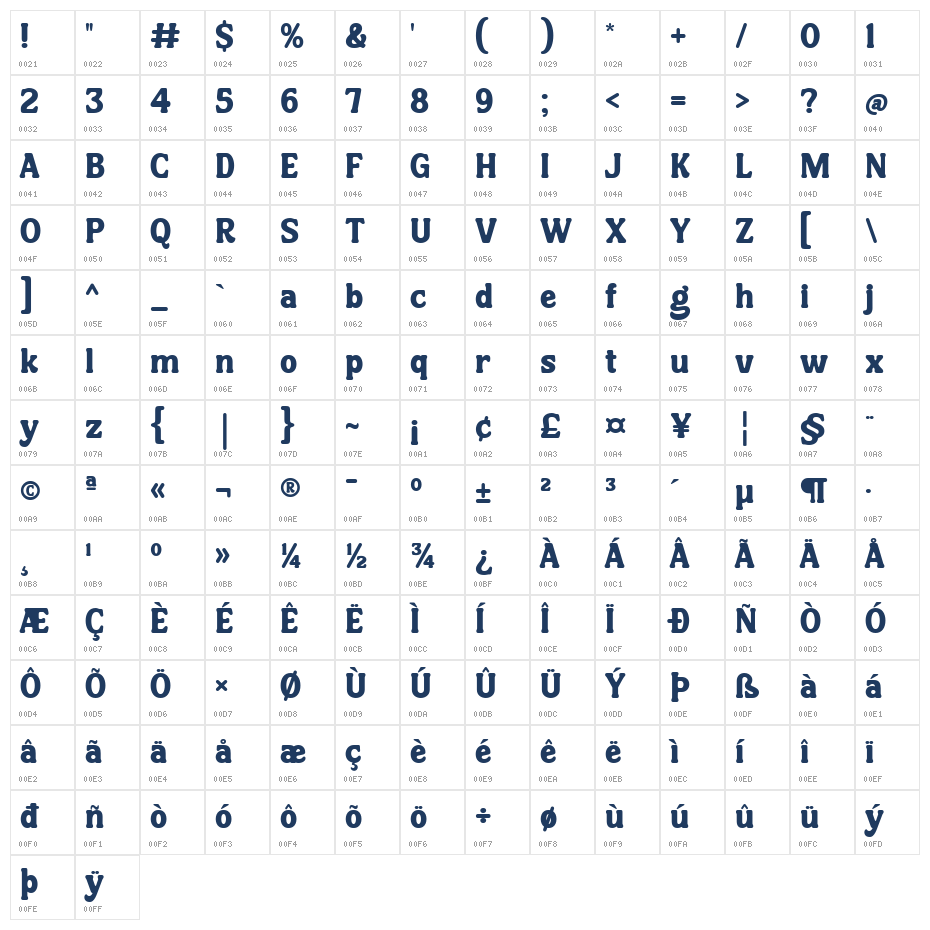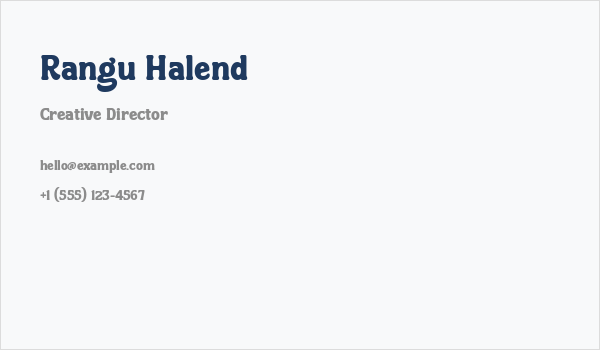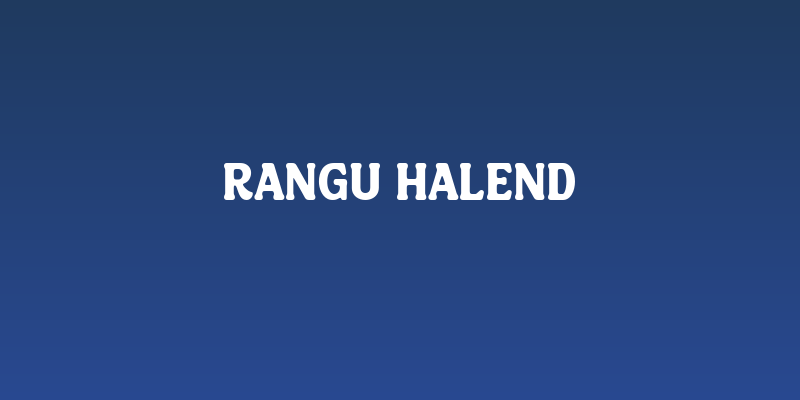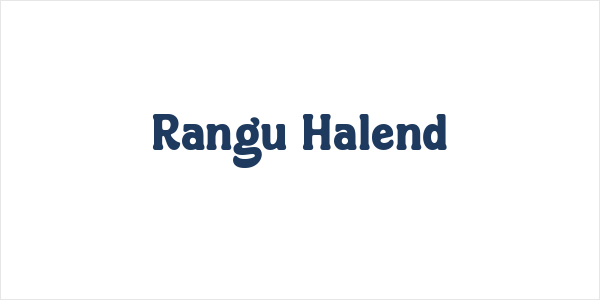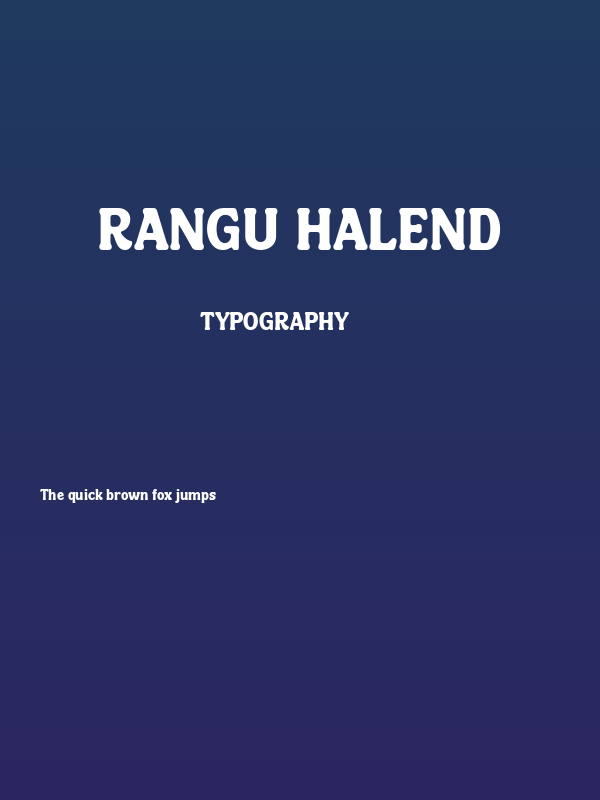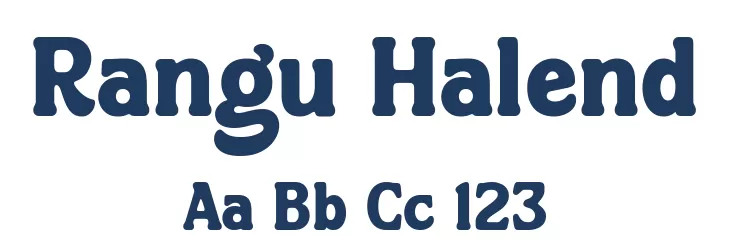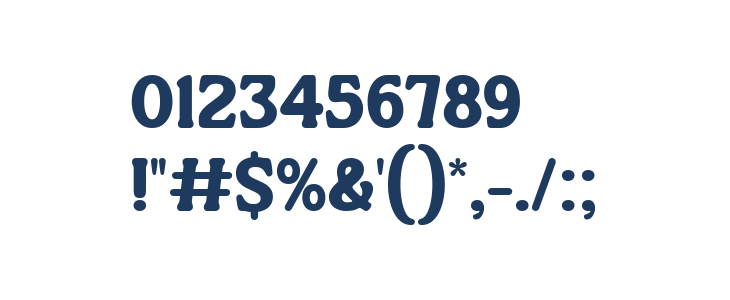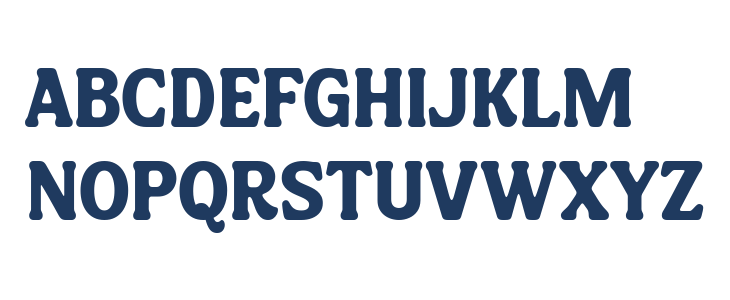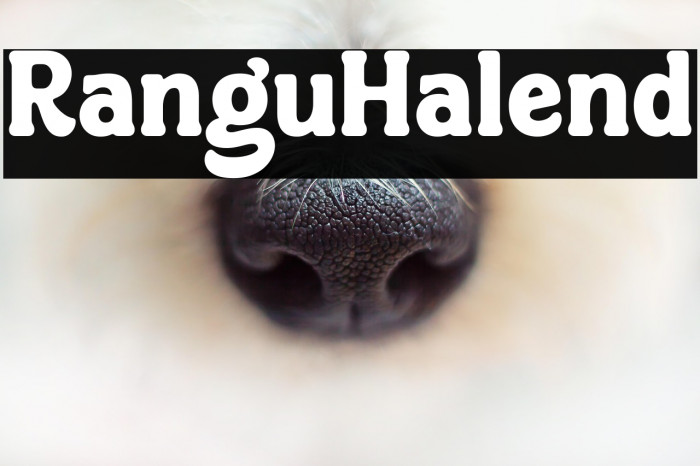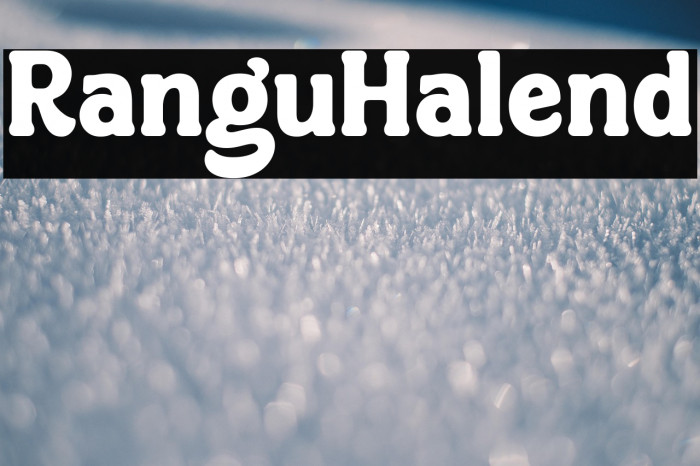
Rangu Halend Font
Rangu Halend Description
Bold, rounded, sans-serif font with a playful and friendly appearance.
| Overall Style | Modern, Friendly, Playful |
| Use Case | Headlines, Display, Logos |